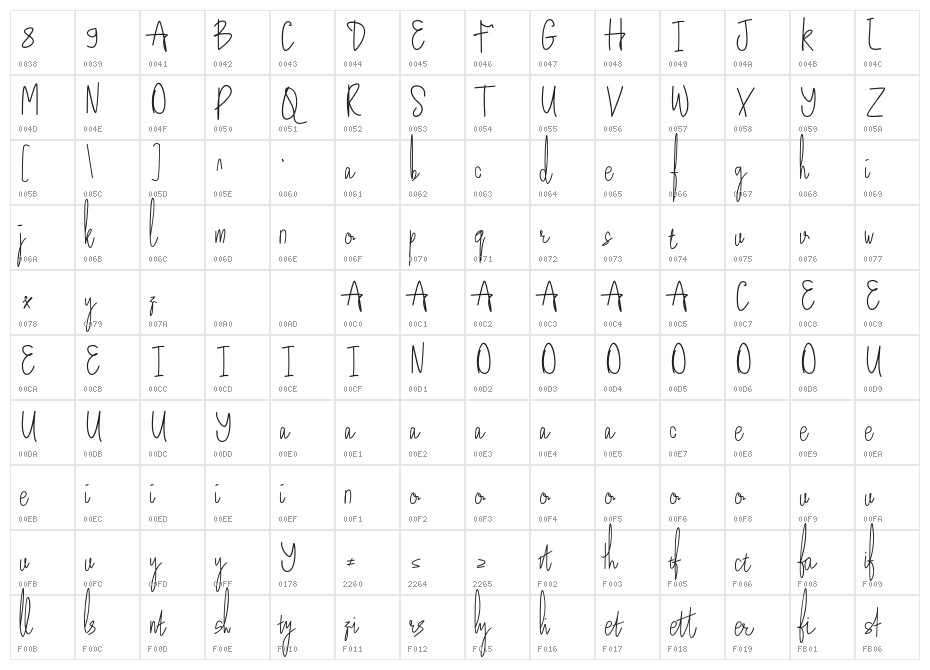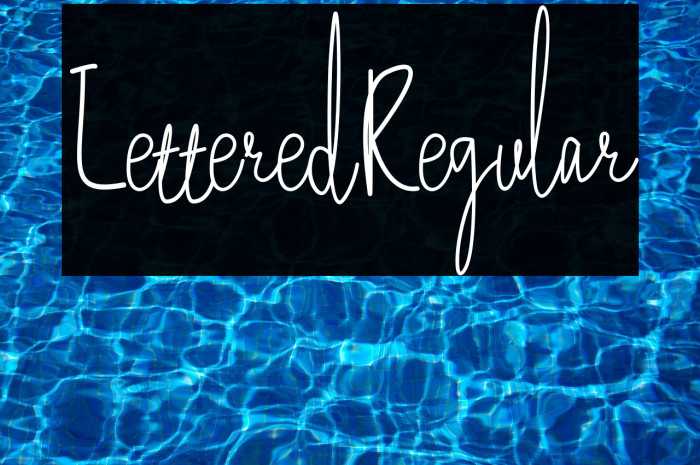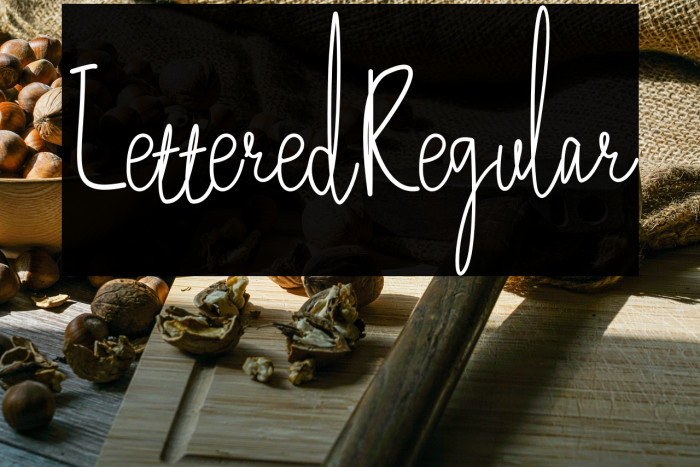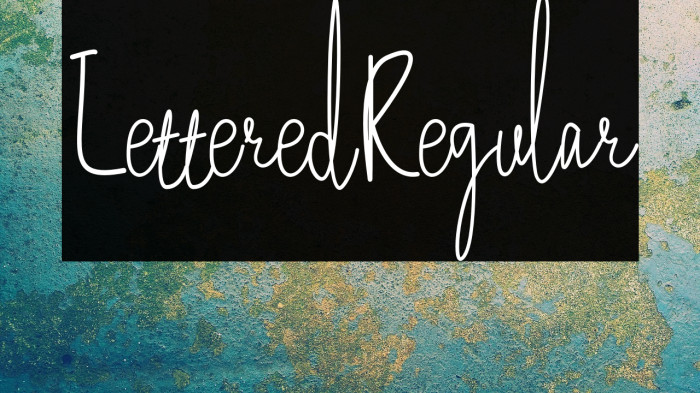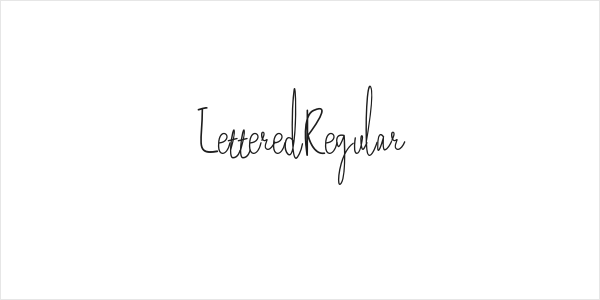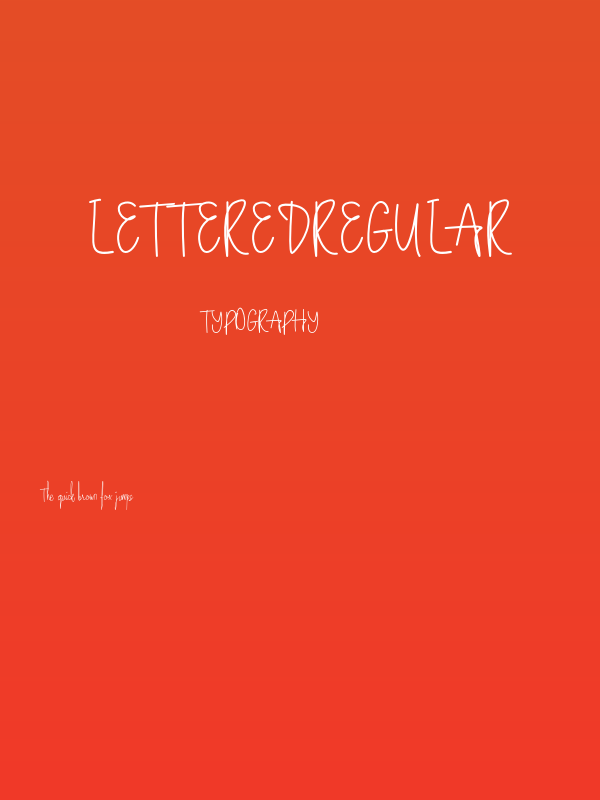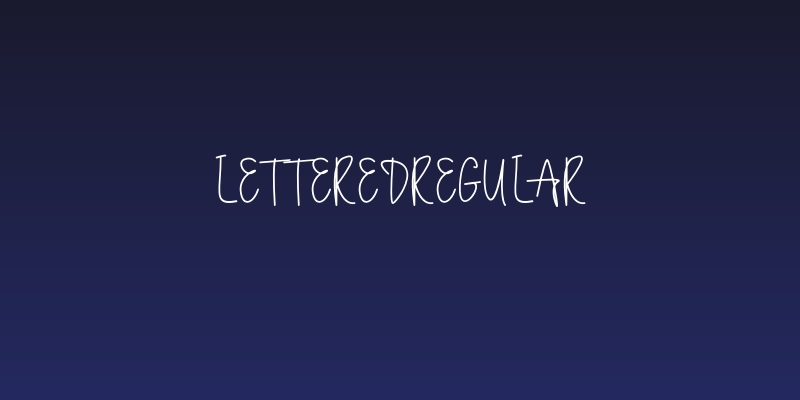
LetteredRegular Font
LetteredRegular Description
This font features a handwritten style with a casual and playful appearance. The uppercase letters are tall and narrow, with a slight slant that adds a dynamic feel. The lowercase letters maintain a consistent flow, enhancing the handwritten aesthetic. The numbers are rounded and maintain the same playful style. Special characters are designed to complement the overall look, ensuring cohesion across all elements. The font's informal and approachable style makes it suitable for creative projects.
| Width | Condensed |
| Overall Style | Casual |
| Use Case | Logos, Headlines, Informal Text |
| Proposed Projects | Ideal for greeting cards, personal branding, social media graphics, and informal invitations. |